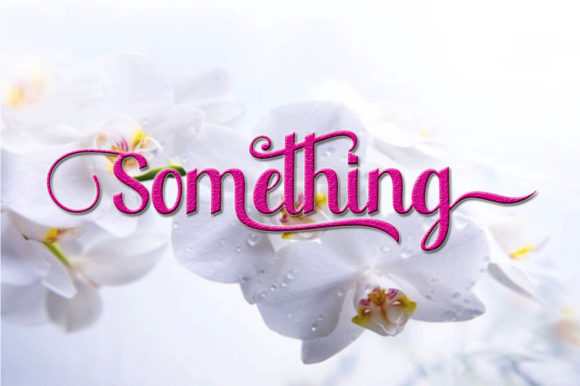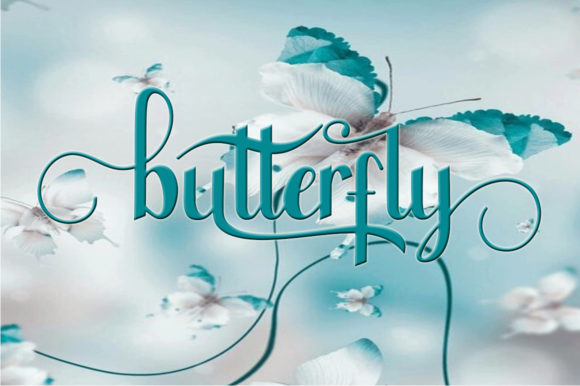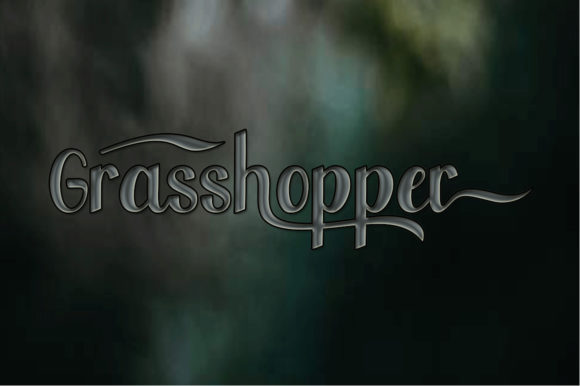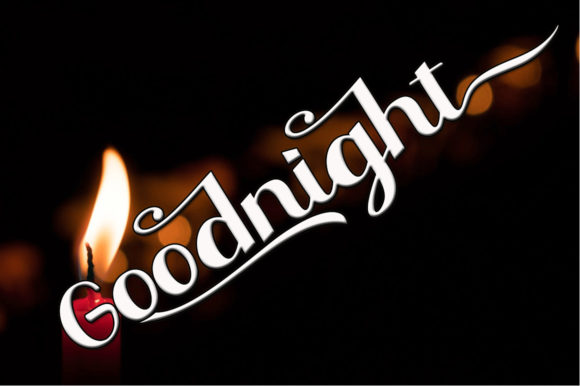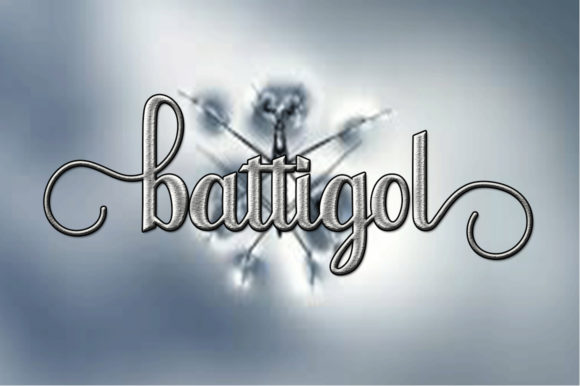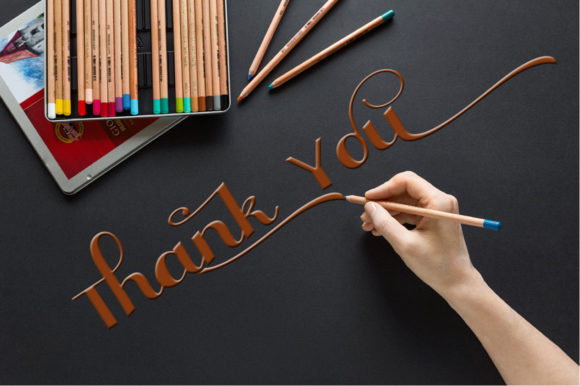
Thaanderley Font
About Thaanderley Font
Thaanderley is an elegant and charming handwritten font with an undeniable charm. Fall in love with its bold swashes!